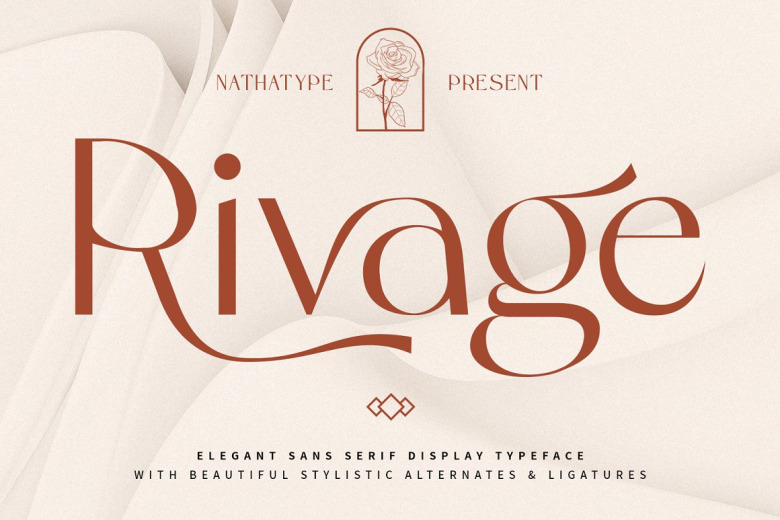
Rivage Font
Rivage is an elegant sans serif font. This font is quite enigmatic, in that its geometric but also has an open curves. The result is a font that looks friendly and professional at the same time. Also, Rivage is versatile enough to be used on tittle or body text.
Rivage Sans Serif Font